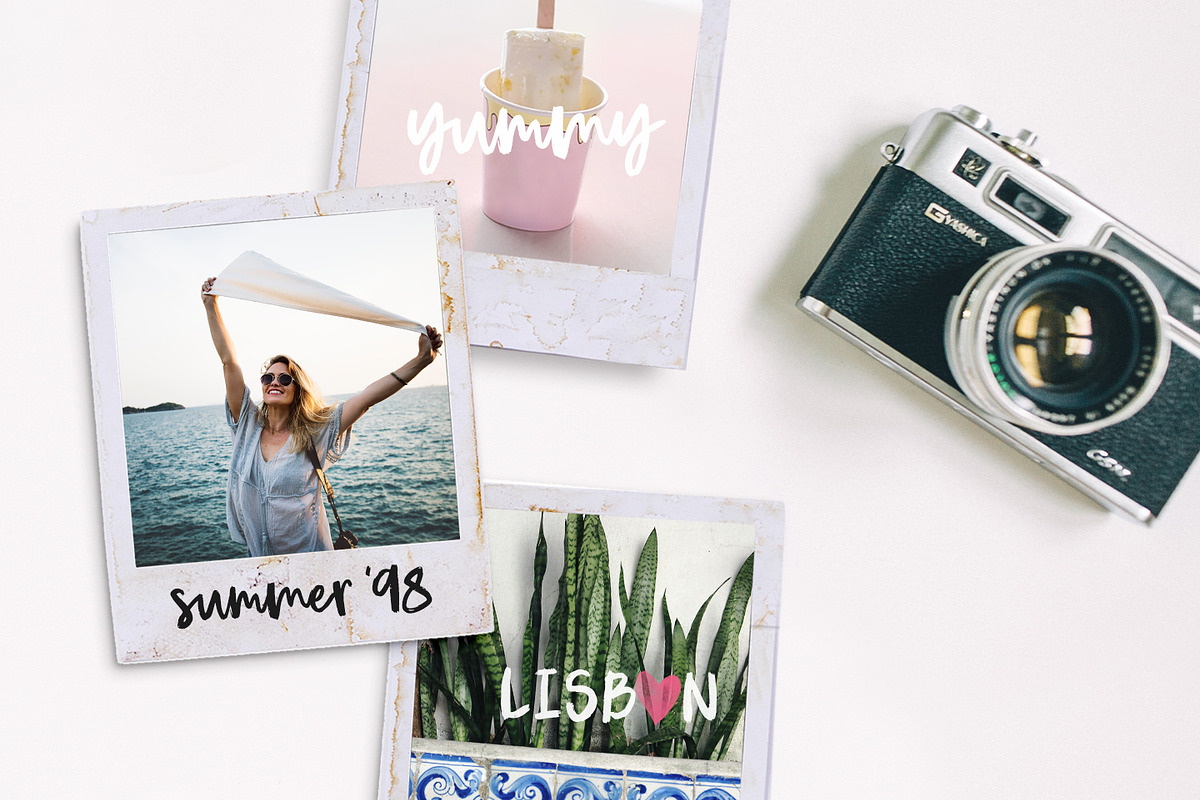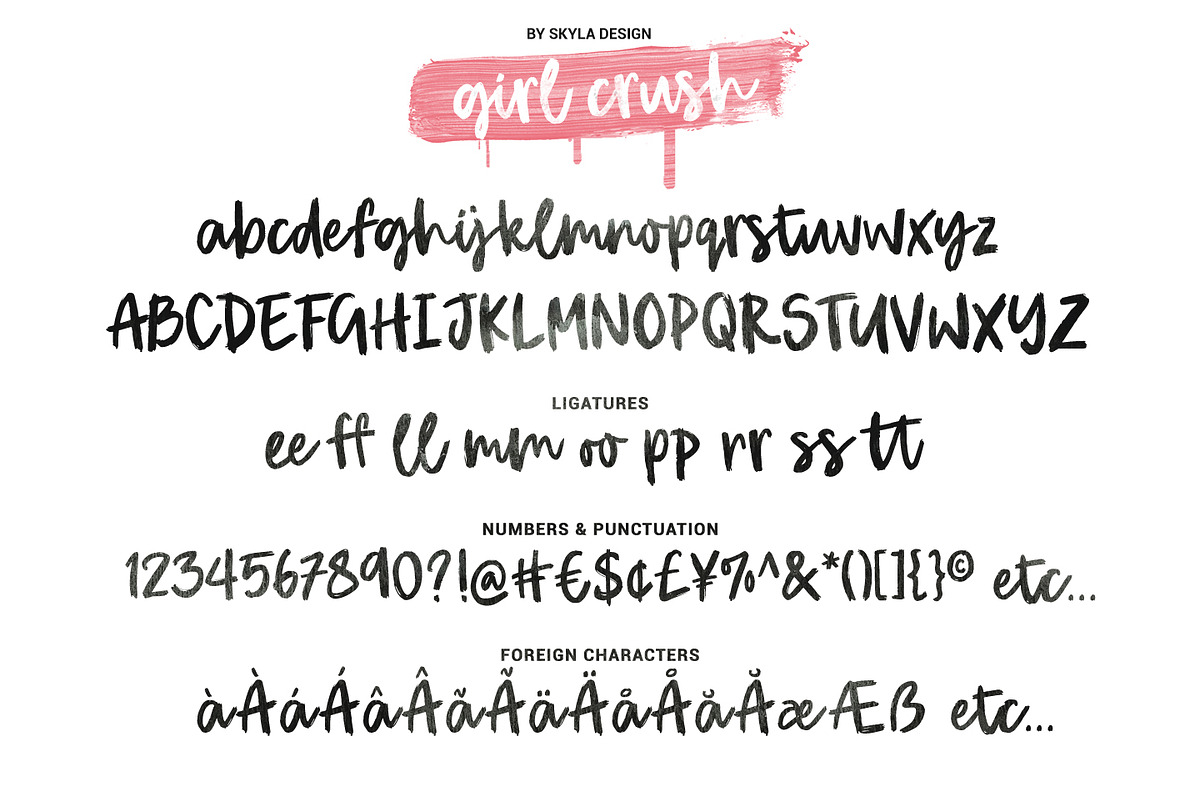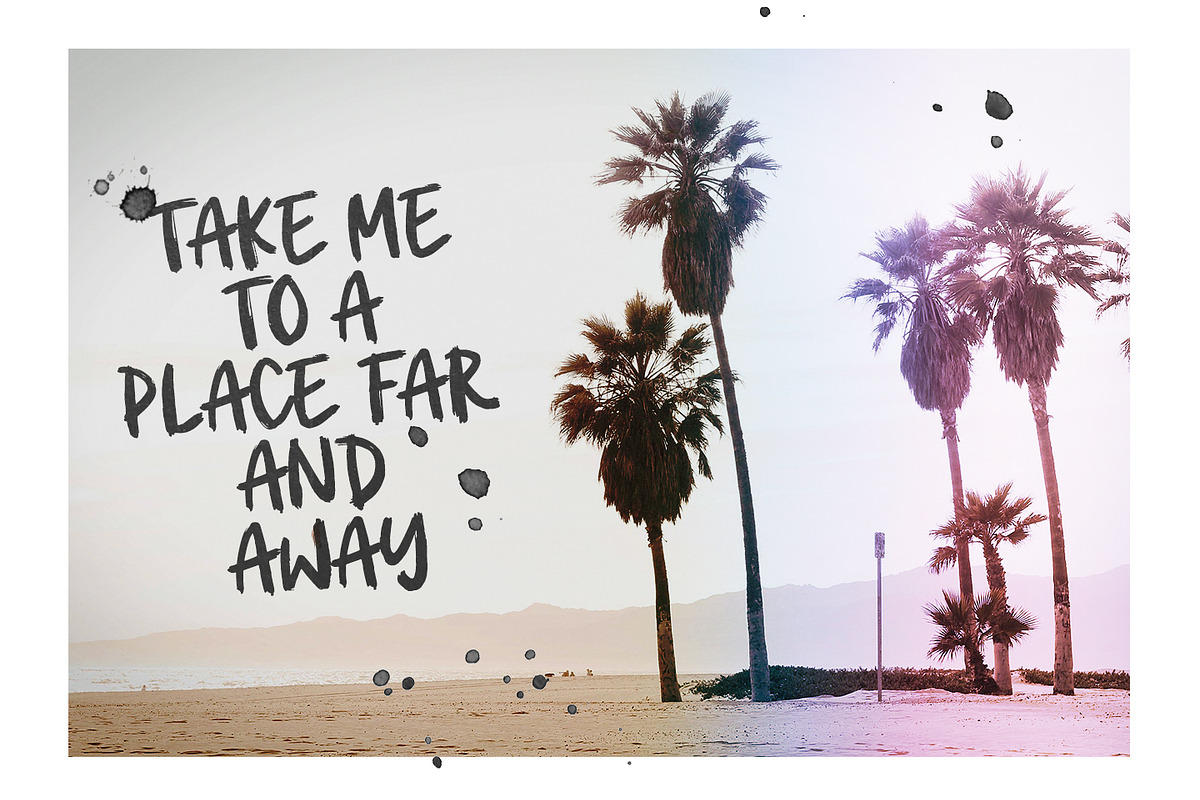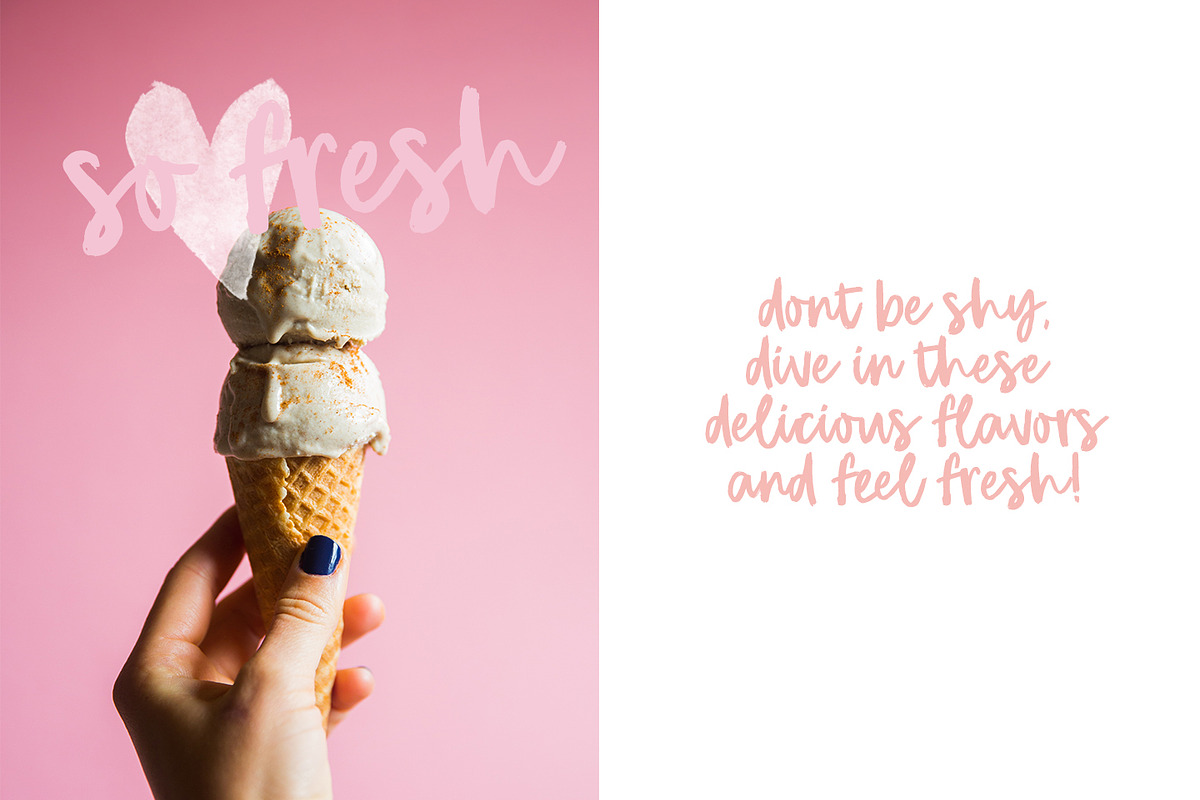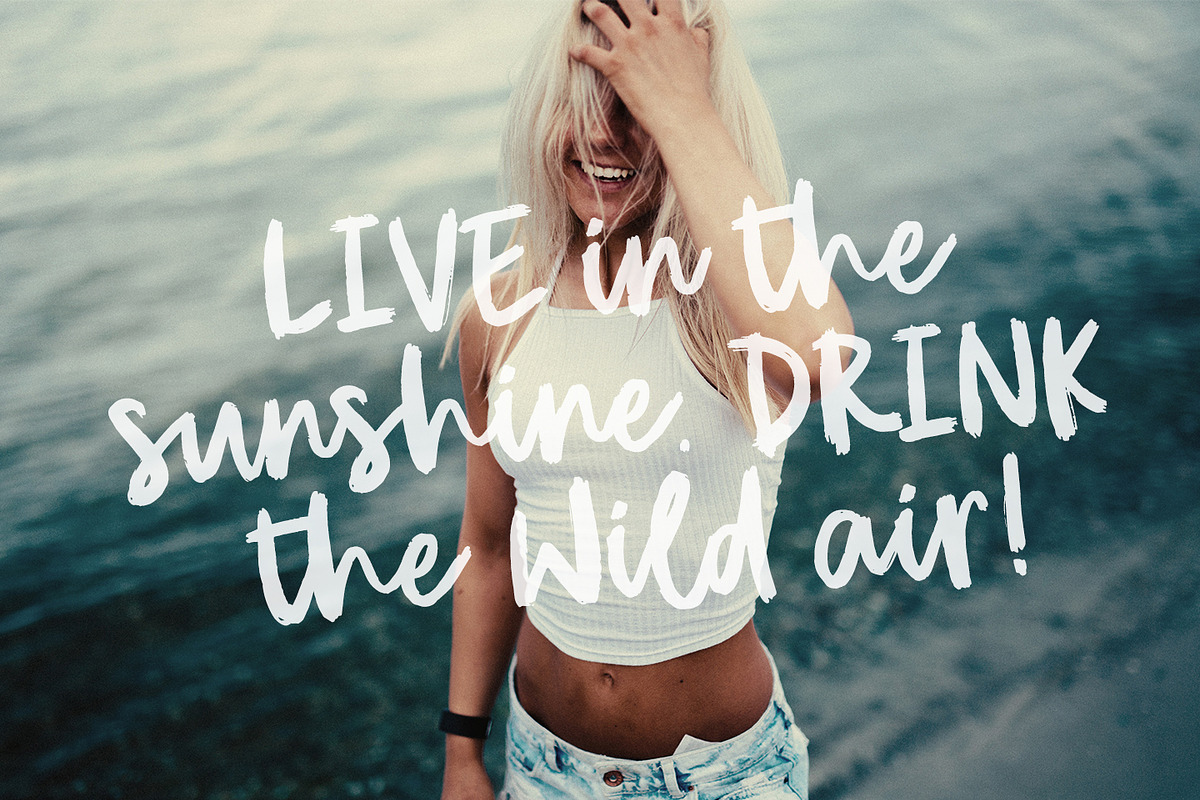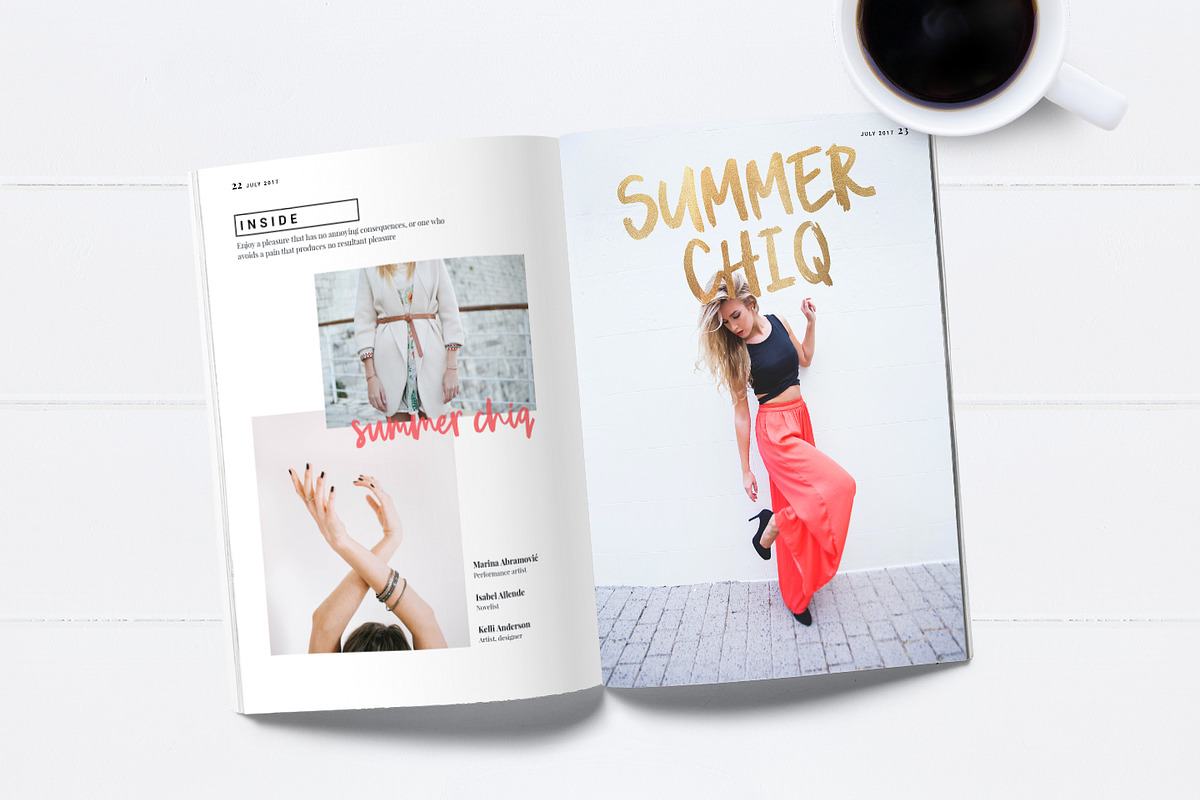
Girl Crush bold brush font
Girl Crush is a bold brush font with an edge. This font will give your designs that fresh, edgy feel to it and will look lovely on quotes, fashion magazines & any other awesome projects.
Girl Crush contains standard characters, lowercase, uppercase, numbers, punctuation, ligatures, and international characters. You will receive OTF and TTF files.
Why Girl Crush bold brush font is worth a look
Girl Crush bold brush font by Angele Kamp fits naturally into Branding, posters, packaging, typography.